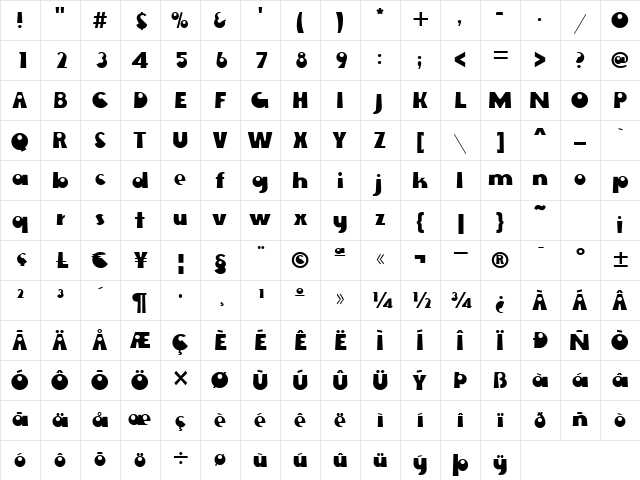
Deco-E870 Regular Free Font
Deco-E870 Regular
Design Context for Deco-E870
Deco-E870 is a composed and adaptable typeface that performs quietly and consistently across a wide range of design contexts.